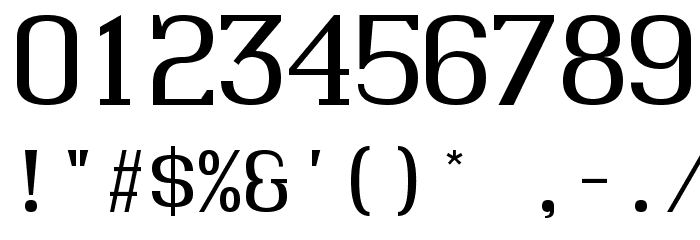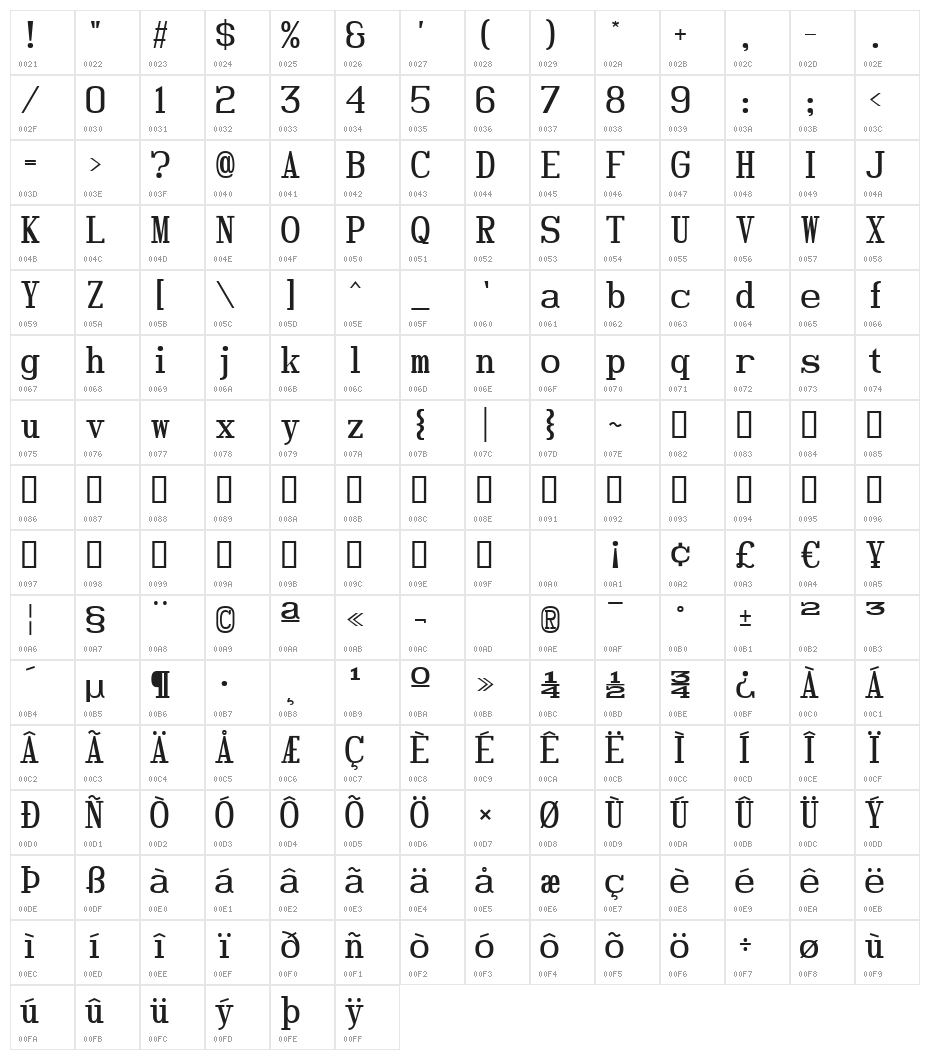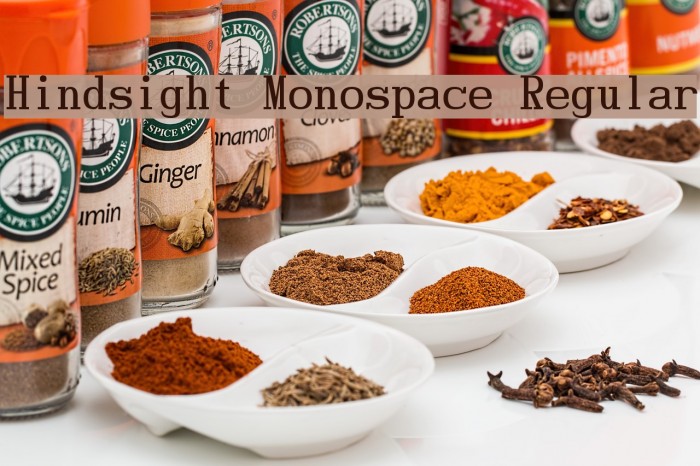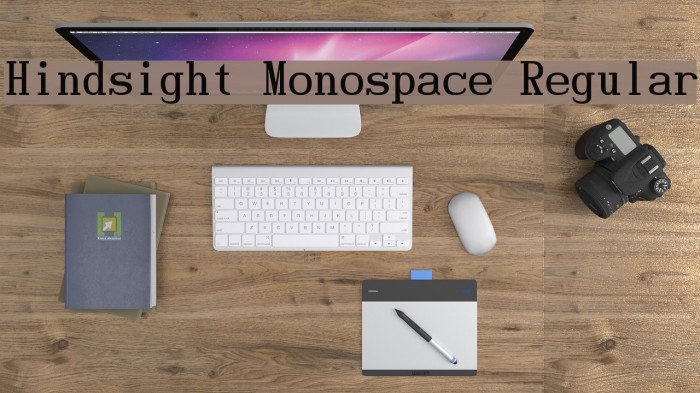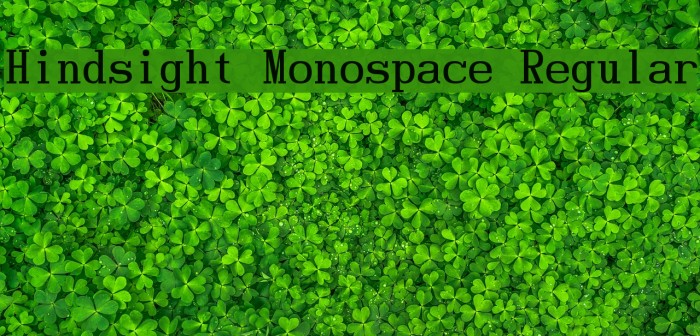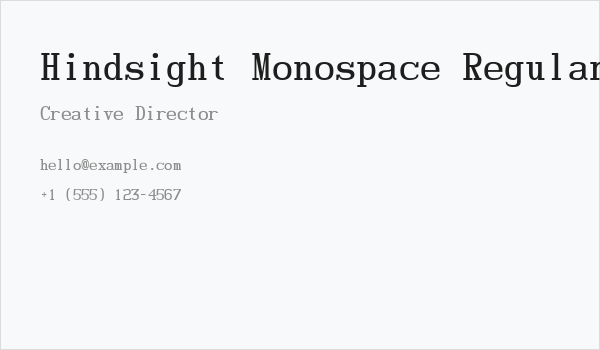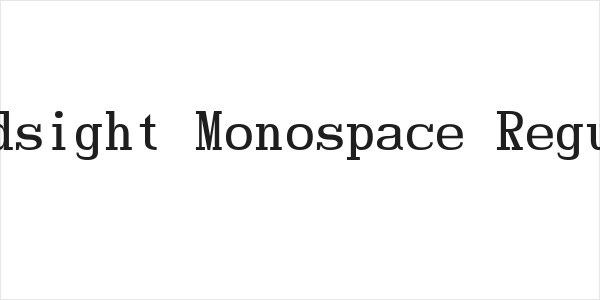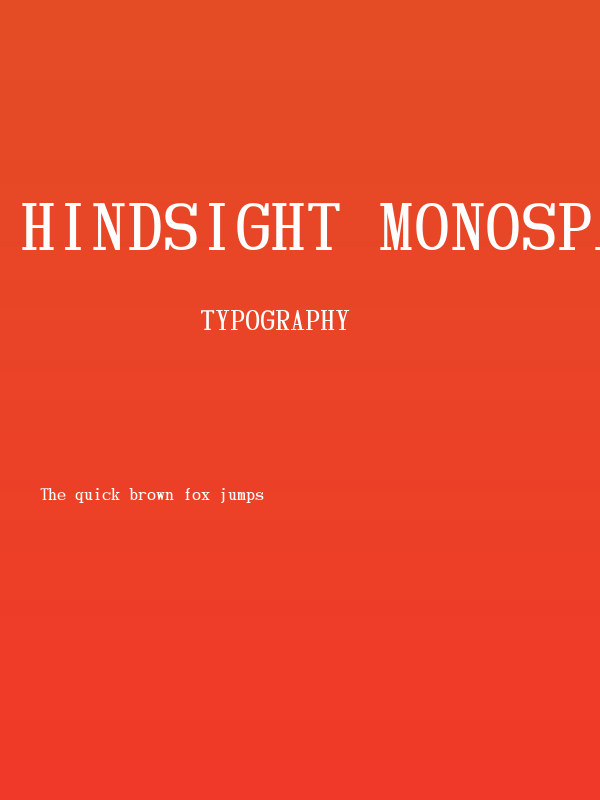
Hindsight Monospace Regular Font
Hindsight Monospace Regular Description
This typeface is a monospaced font characterized by its uniform spacing and consistent width across all characters. It features a classic serif design with distinct, sharp edges and a clean, professional appearance. The uppercase letters are bold and commanding, while the lowercase letters maintain a balanced and readable form. Numbers are clear and easily distinguishable, making them ideal for data presentation. The special characters are well-defined, ensuring clarity in technical and coding environments. Overall, this font combines traditional serif elements with the precision of a monospaced layout, offering versatility and readability.
| Use Case | Coding, Technical documents, Data tables |
| Proposed Projects | Ideal for coding, technical documents, data tables, and any project requiring precise alignment. |